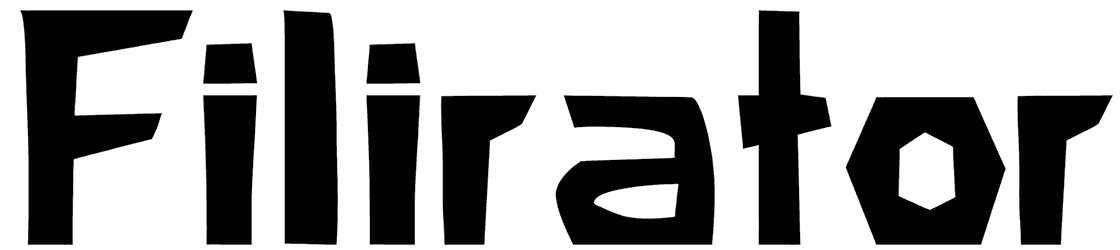
Filirator Font
Having a polygonal stone font such as Filirator would be really tempting for every graphic designer who is going to create a piece of art, such as posters, business cards, book covers, magazines, and flyers. This font has the real potential to bring your artwork to the next level by adding a sense of playfulness, innovation, dynamism, and drama to it.
Designed by: Joachim Frank